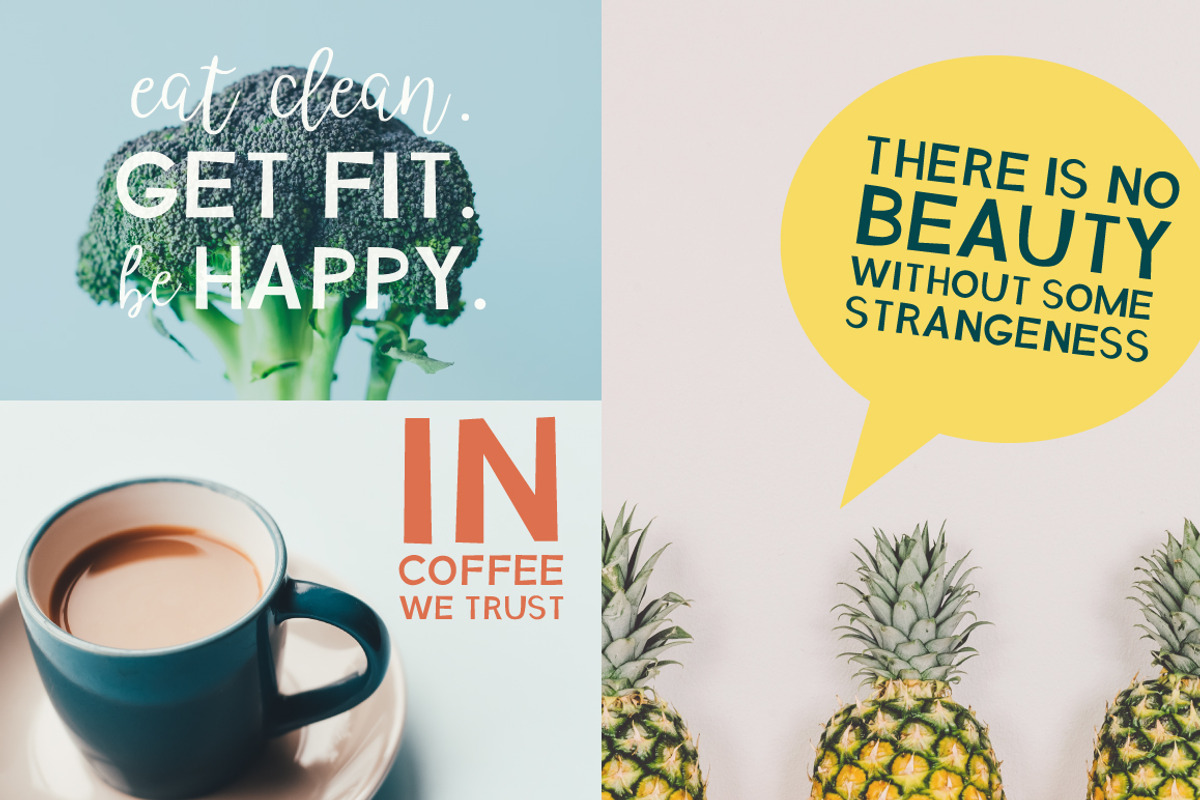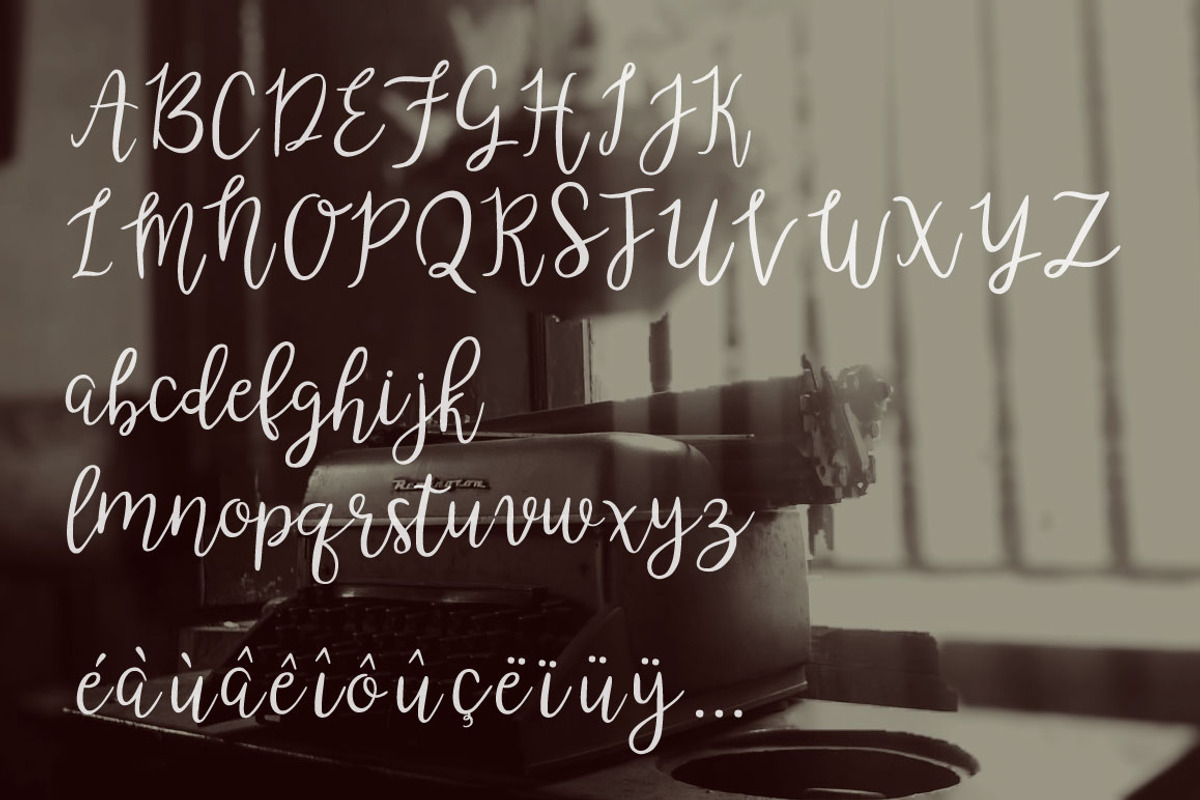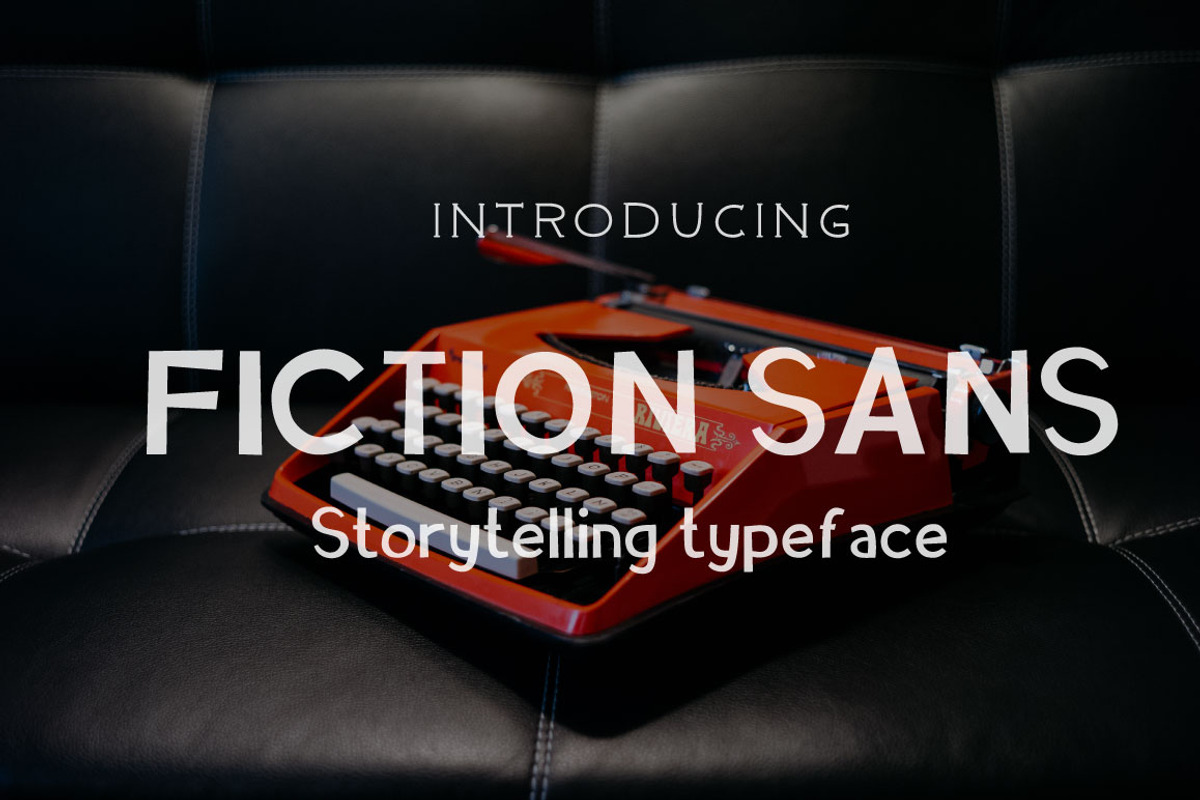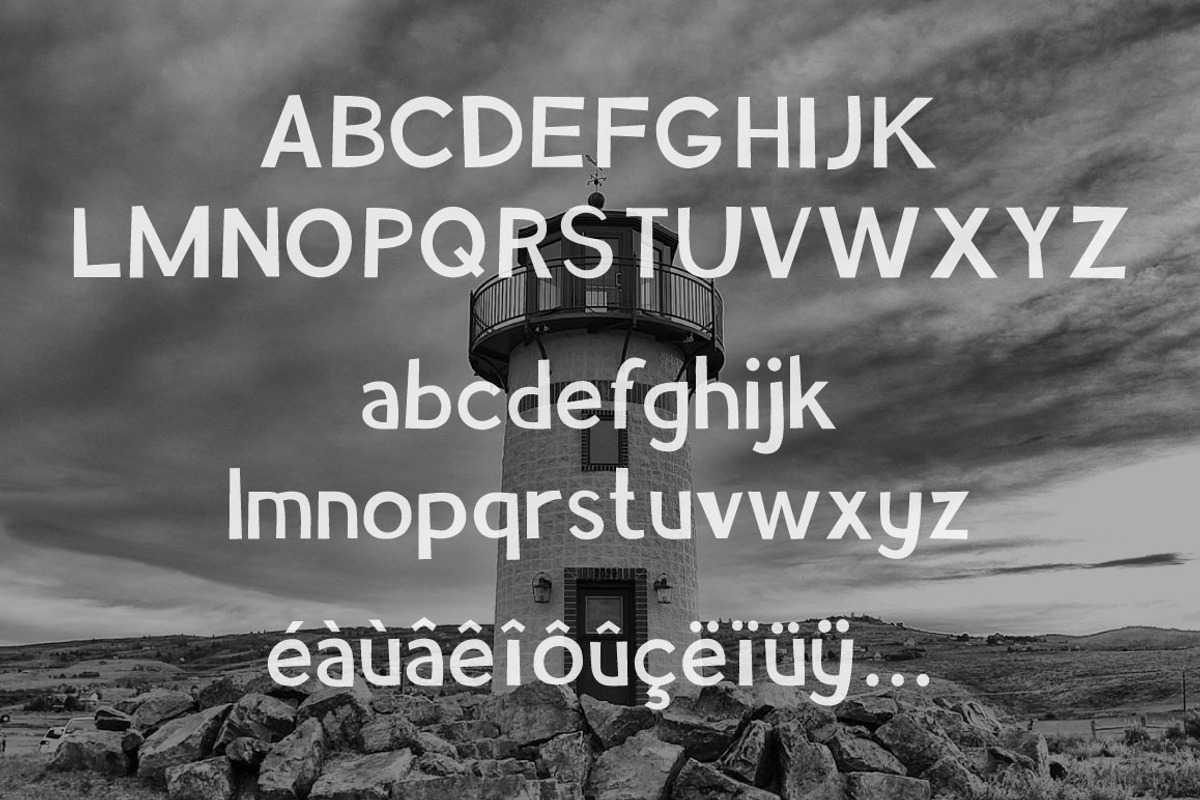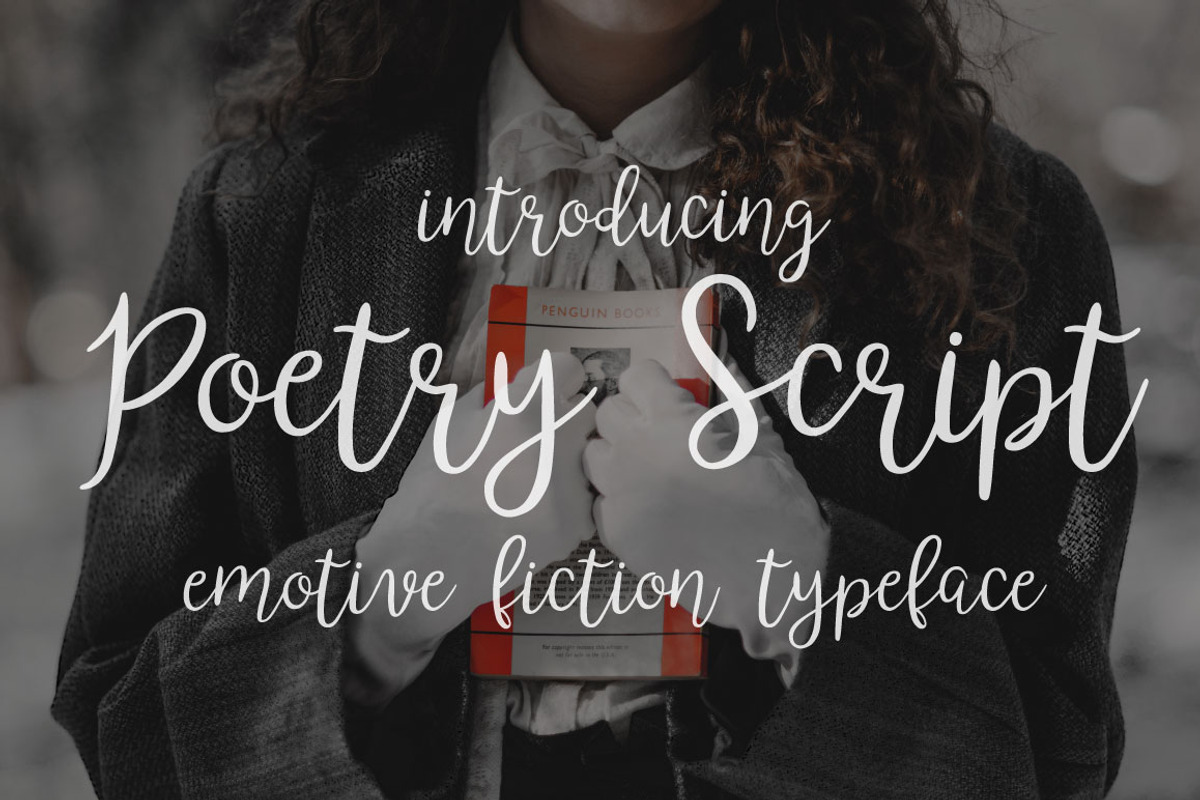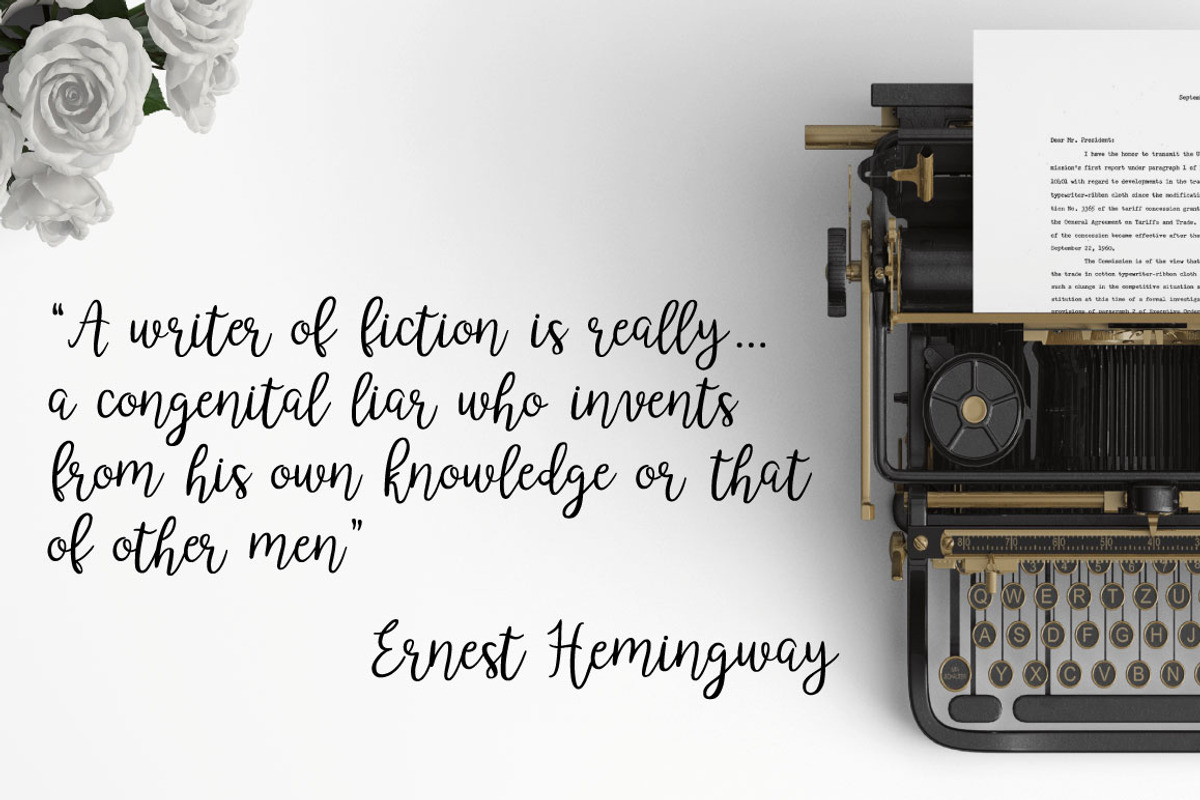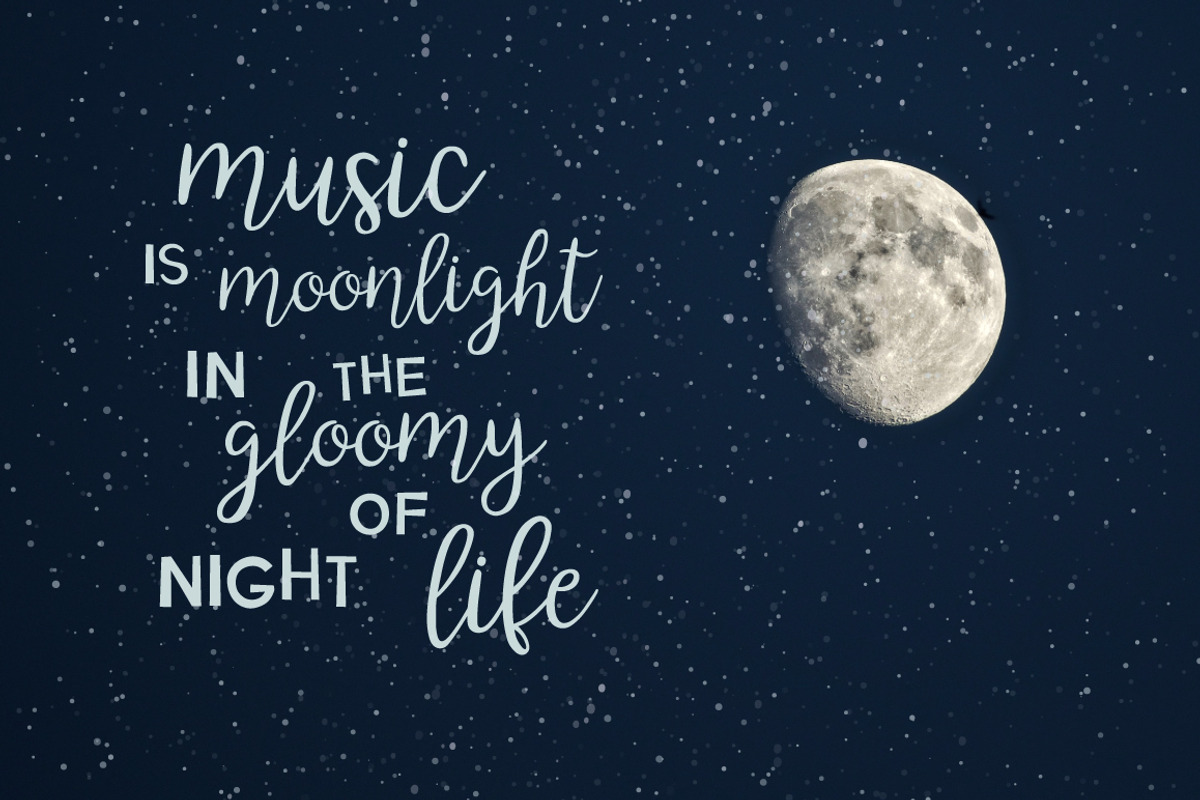
Poetry&Fiction novel font duo
Poetry&Fiction novel font duo by Pxlhead is a font selected for branding, posters, packaging, typography.
Why Poetry&Fiction novel font duo is worth a look
Poetry&Fiction novel font duo by Pxlhead fits naturally into Branding, posters, packaging, typography.